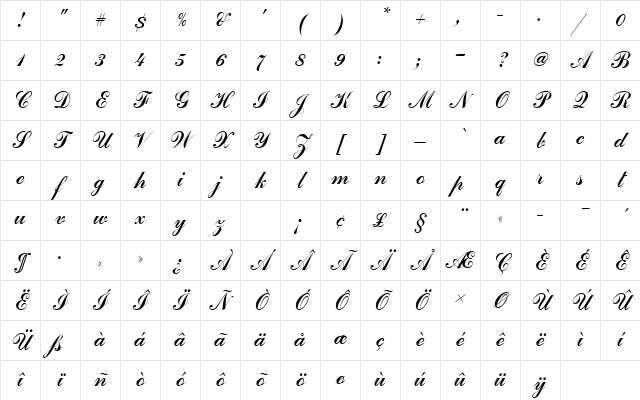
CommercialScrDRo1 Regular Free Font
CommercialScrDRo1 Regular
Design Context for CommercialScrDRo1
CommercialScrDRo1 is a composed and adaptable typeface that performs quietly and consistently across a wide range of design contexts.
Pro Tip: Use CommercialScrDRo1 in both headline and body roles to test its range before committing to a single application.